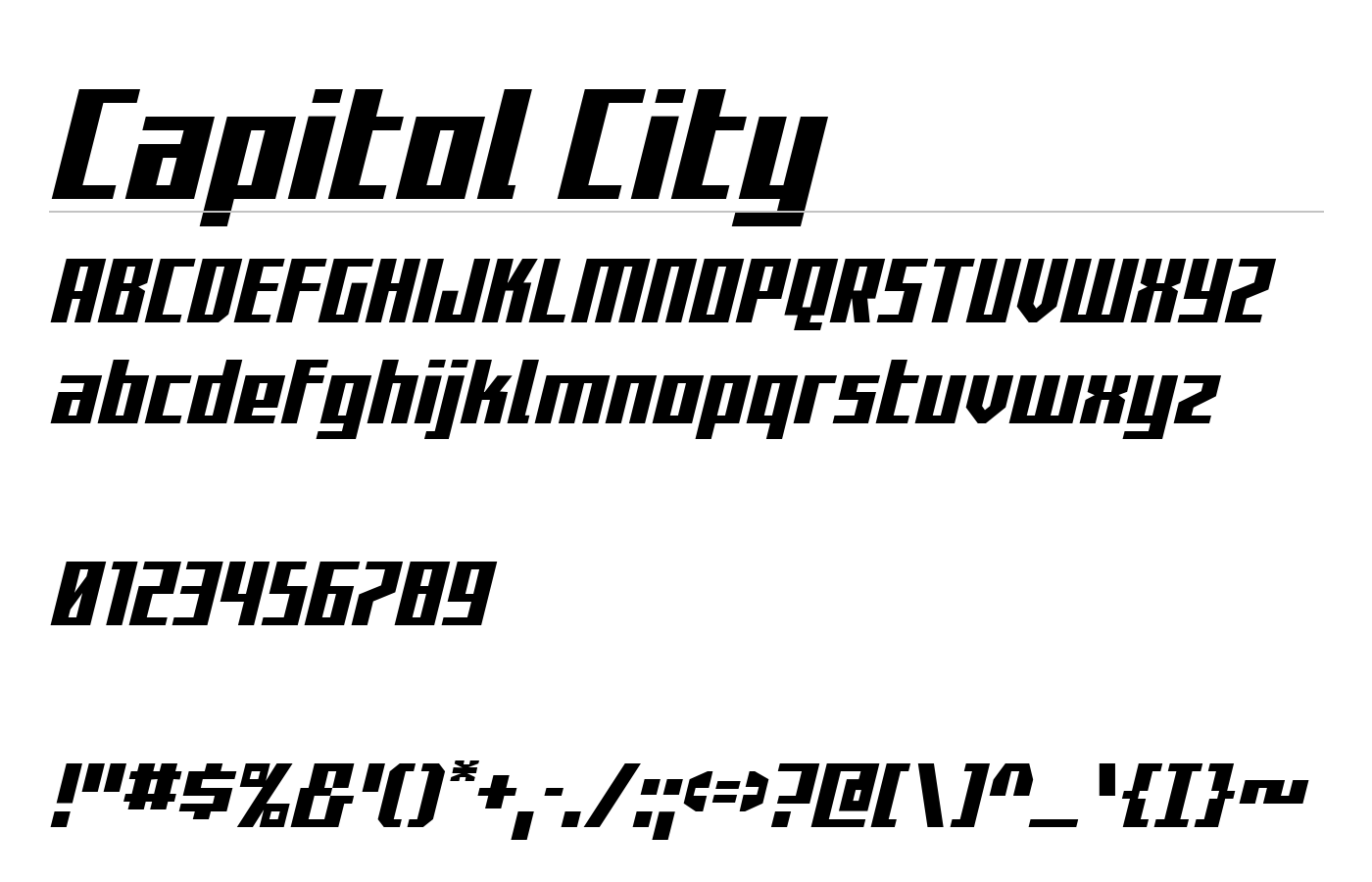
Capitol City is a bold, condensed sans serif font with a strong slant that conveys speed and modernity. Its sharp, geometric letterforms and high contrast strokes give it an energetic, dynamic feel, making it ideal for headlines, sports branding, and tech-related designs. This font works well where a sense of forward motion and impact is needed, such as posters, logos, and urban-themed projects.
Capitol City Font